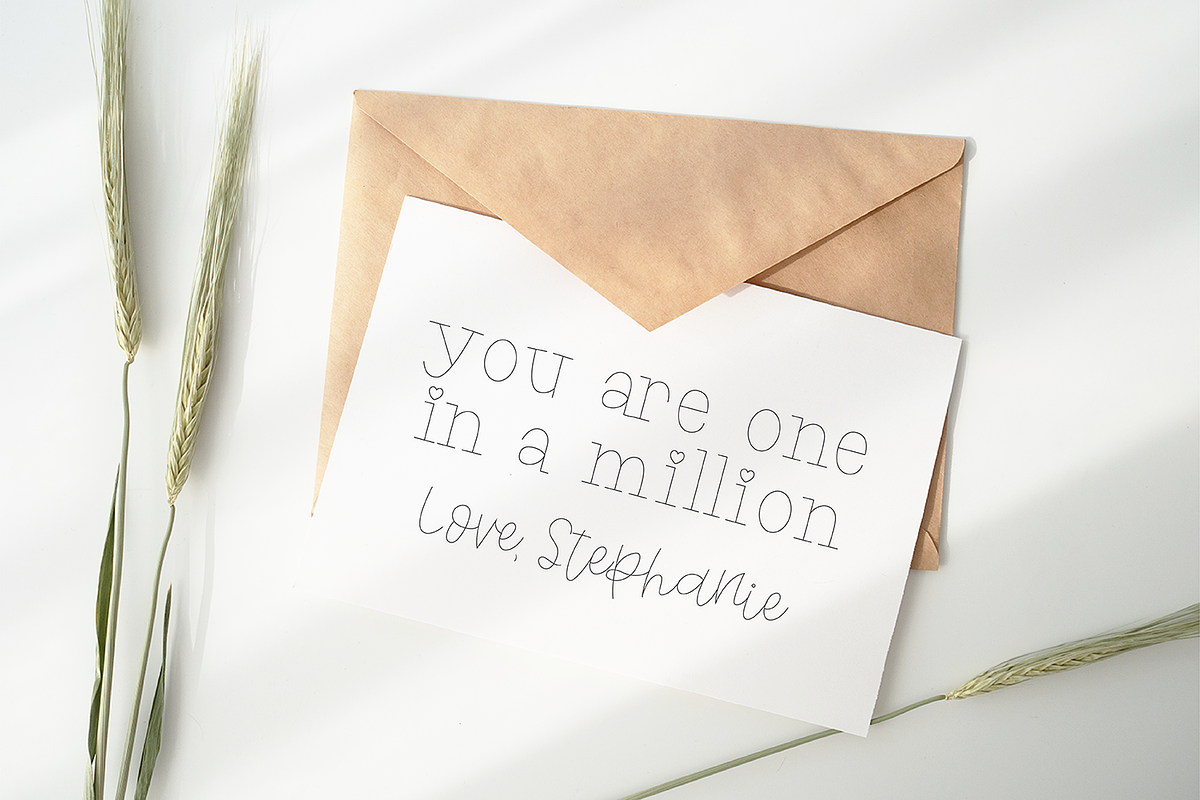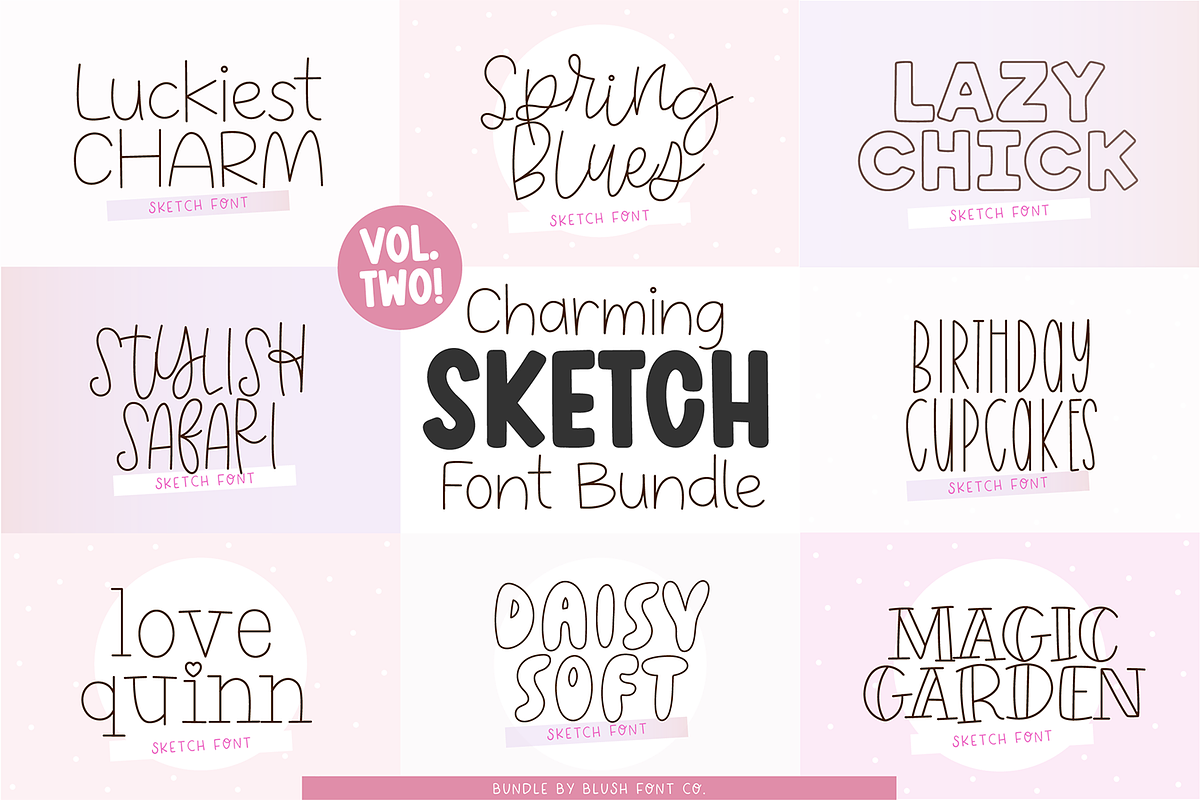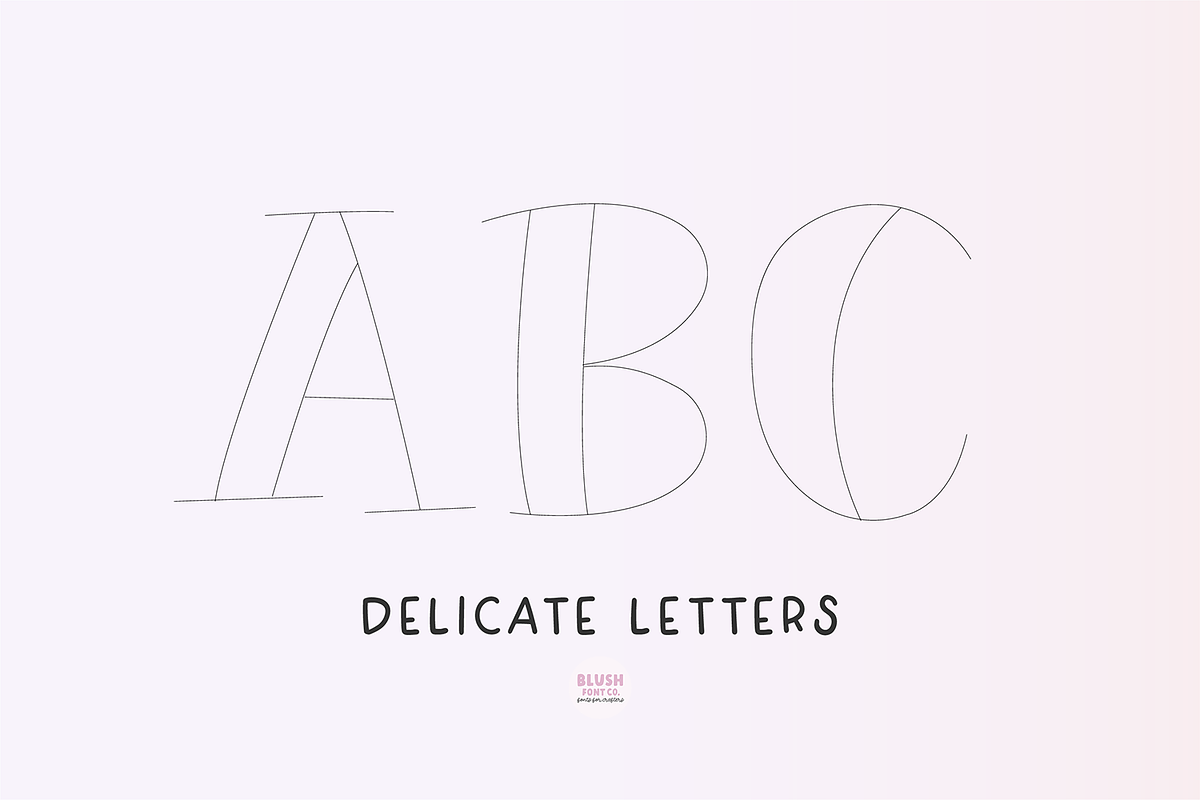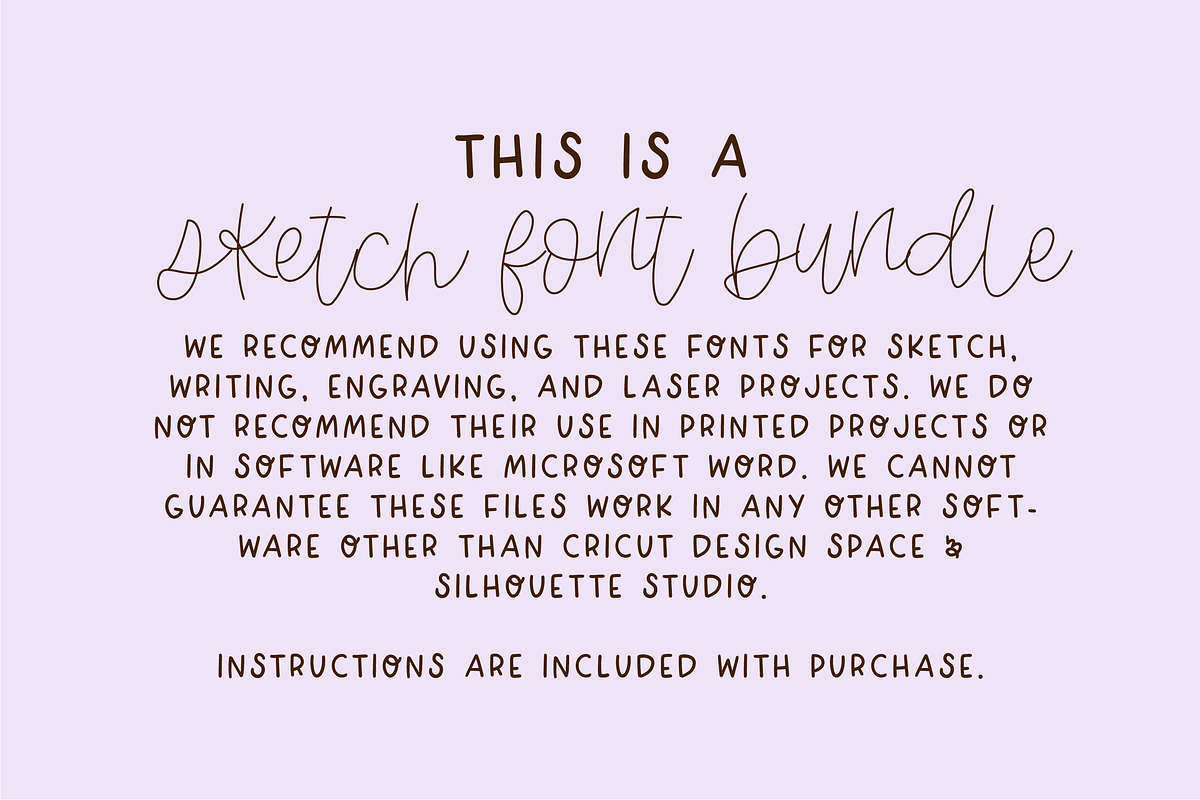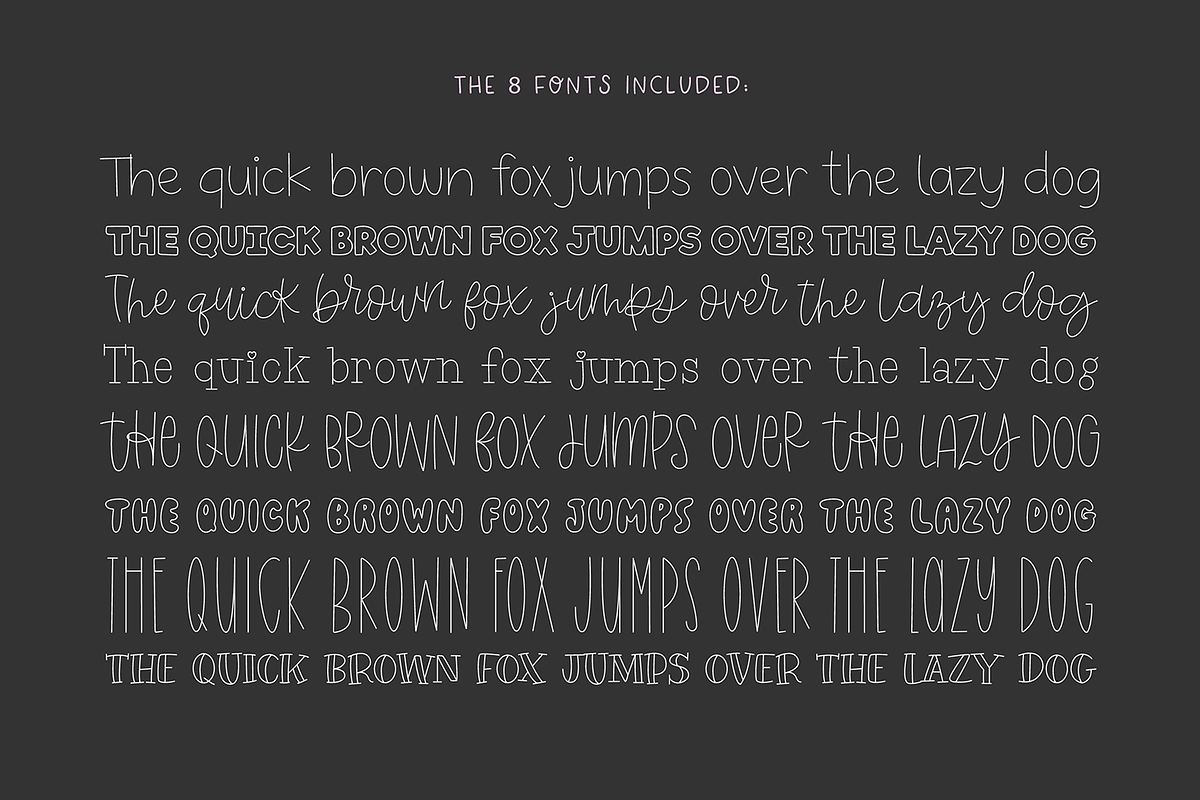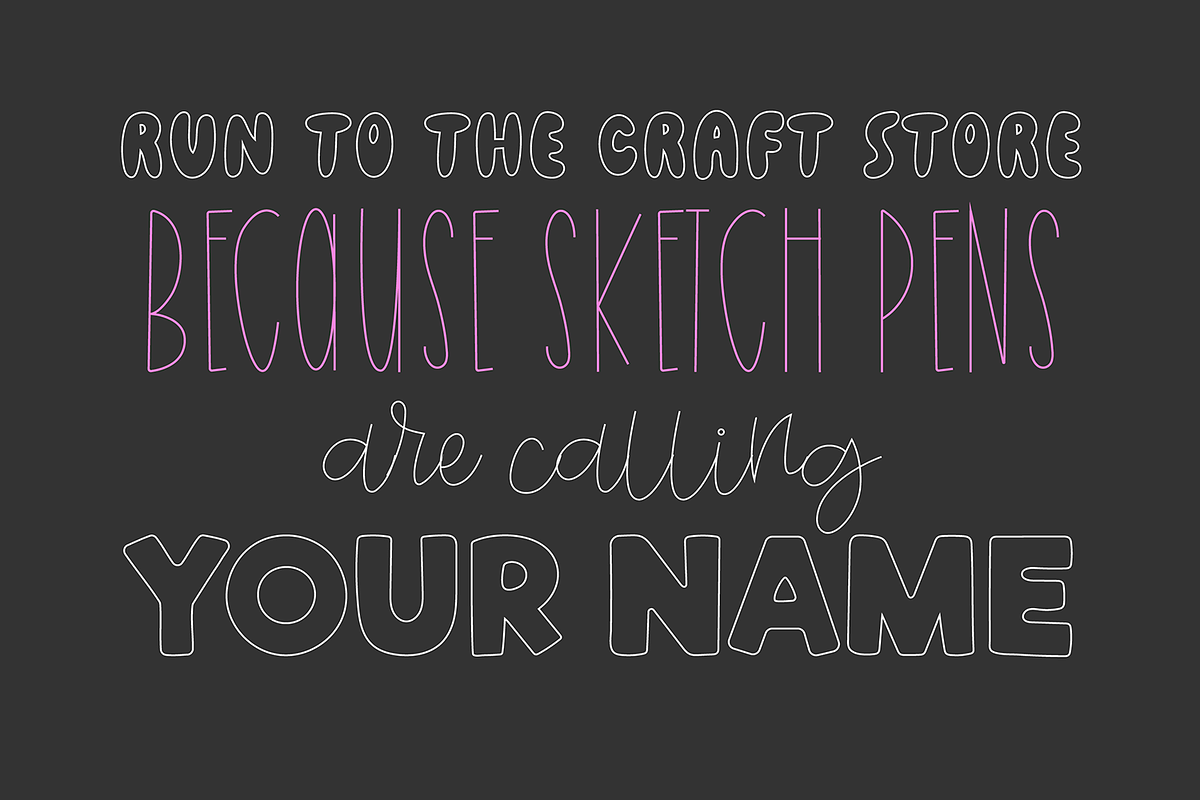
CHARMING SKETCH FONT BUNDLE 2
Grab these 8 adorable sketch fonts in one download!
We recommend using these fonts in your Cricut or Silhouette software for writing, sketch, engraving, etching, and laser projects. We do not recommend their use in printed projects or in software like Microsoft Word. We cannot guarantee these files work in any other software other Cricut Design Space & Silhouette Studio. Multiple customers have used these in laser projects/software although we have not personally tested them.